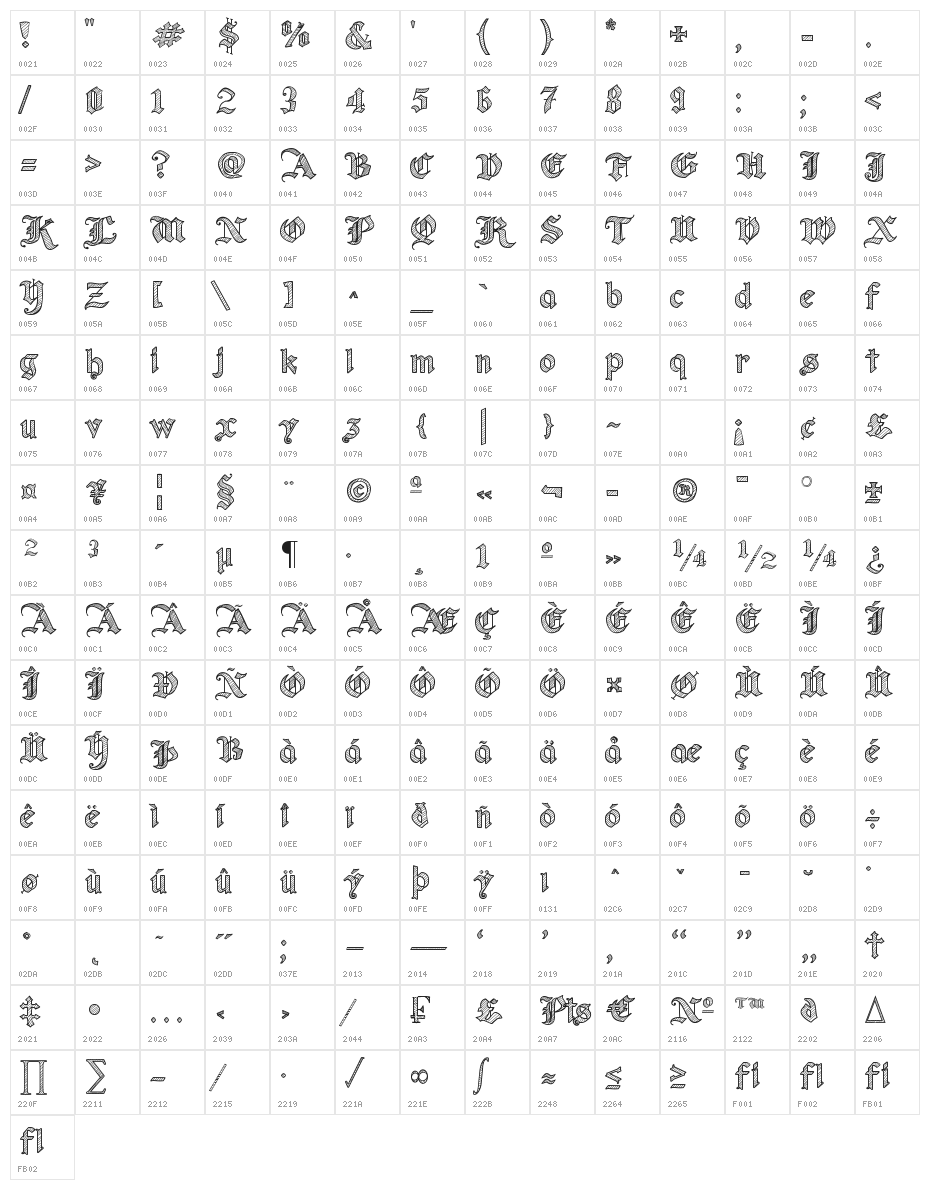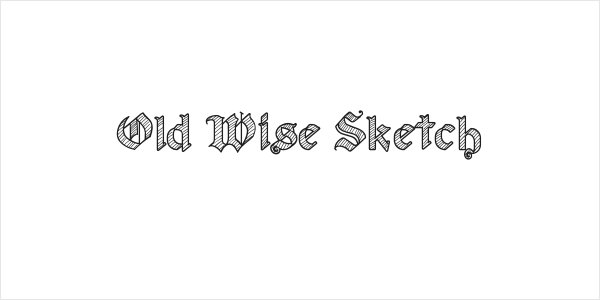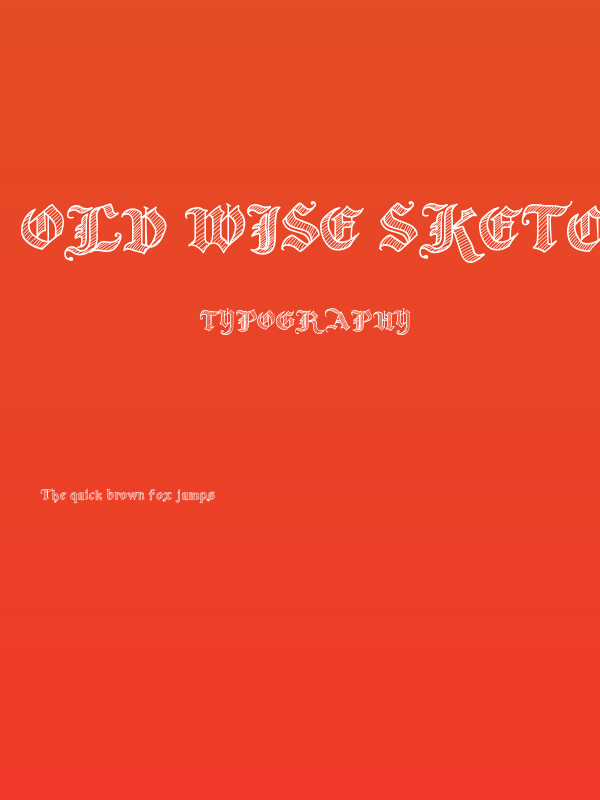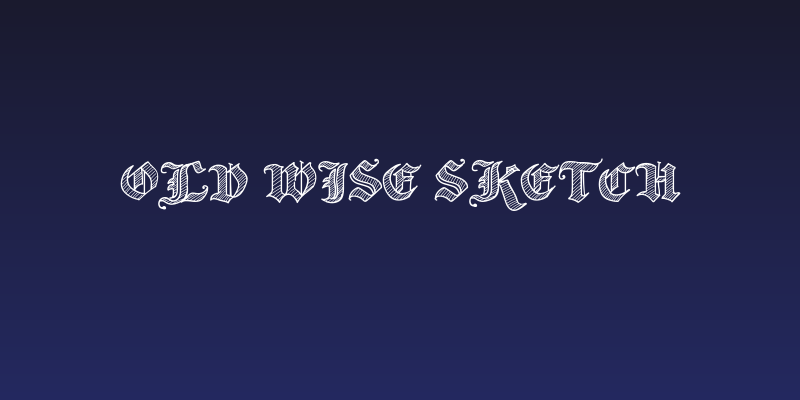
Old Wise Sketch Font
Old Wise Sketch Description
This font features a bold, intricate design reminiscent of traditional blackletter styles, characterized by its ornate and decorative elements. The letters are formed with a series of parallel lines, giving a sketch-like appearance that adds depth and texture. The uppercase letters are particularly elaborate, with sharp angles and flourishes that convey a sense of historical elegance. The lowercase letters maintain this complexity, ensuring consistency throughout the typeface. Numbers and special characters are equally detailed, making this font suitable for projects that require a touch of vintage sophistication. The overall impression is one of classic artistry, making it ideal for designs that aim to evoke a sense of tradition and craftsmanship.
| Proposed Projects | Ideal for vintage-themed designs, book covers, posters, and branding that requires a historical or artistic touch. |